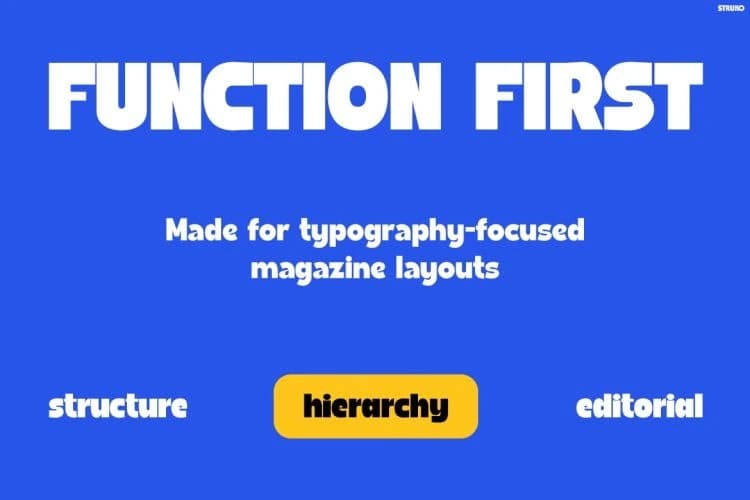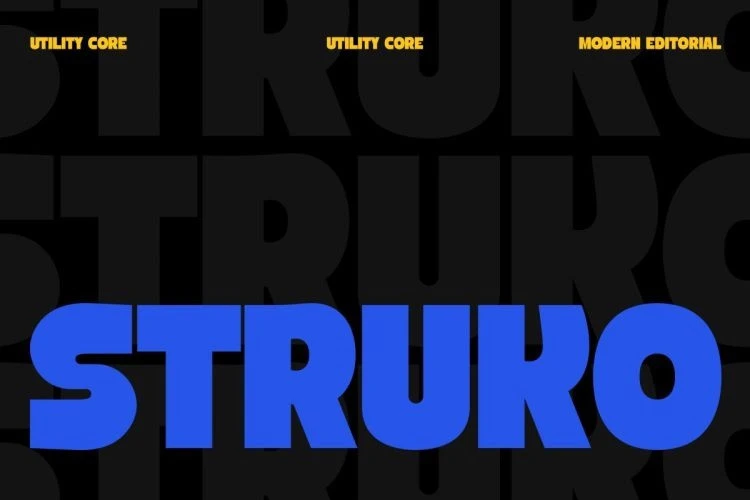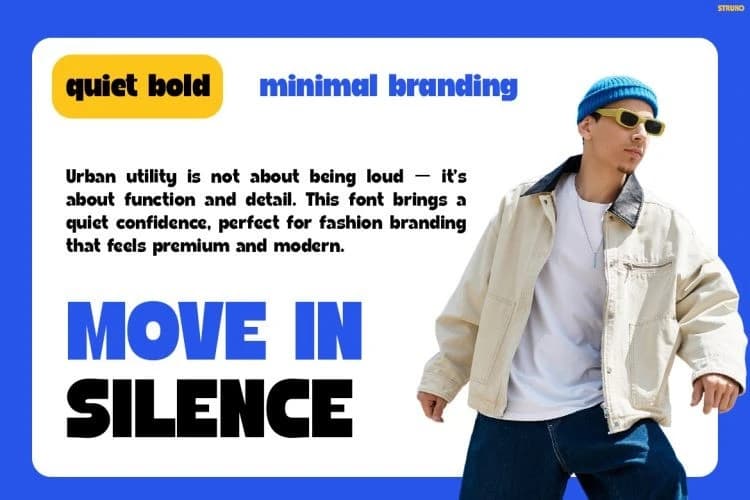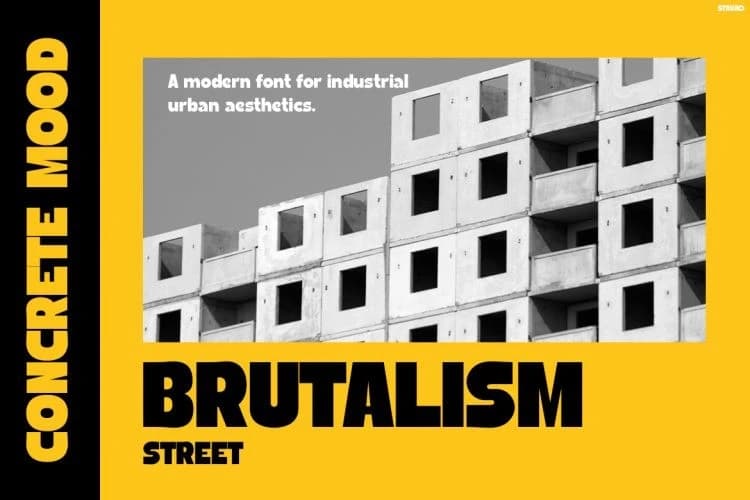
STRUKO Font is a strong and modern typeface designed to deliver a clean, bold, and urban visual impact. At first glance, its solid shapes and geometric structure create a confident and structured look.